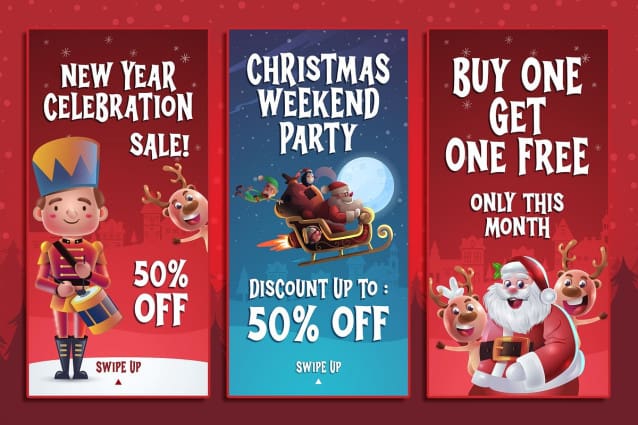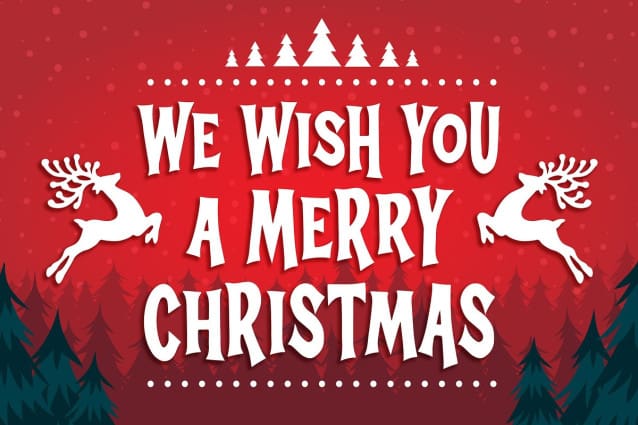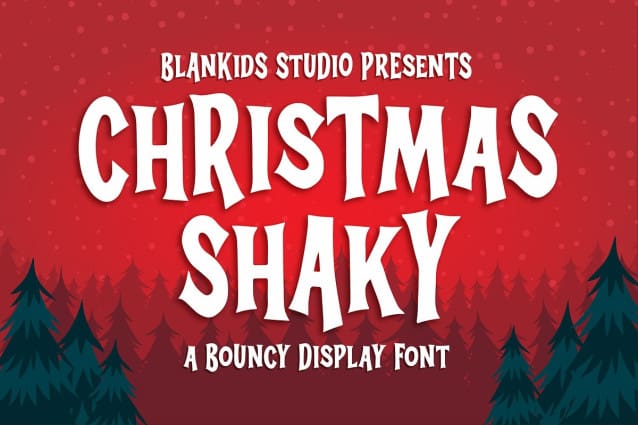
Christmas Shaky Font
Christmas Shaky Font a Bouncy Display Font, Inspiring from playful stone style typography. This font is perfect for a design that makes it more attractive and playful. made with a very good level of aesthetics making this font suitable for book cover, children book, comic, poster, packging, merchandise, logotype and much more.